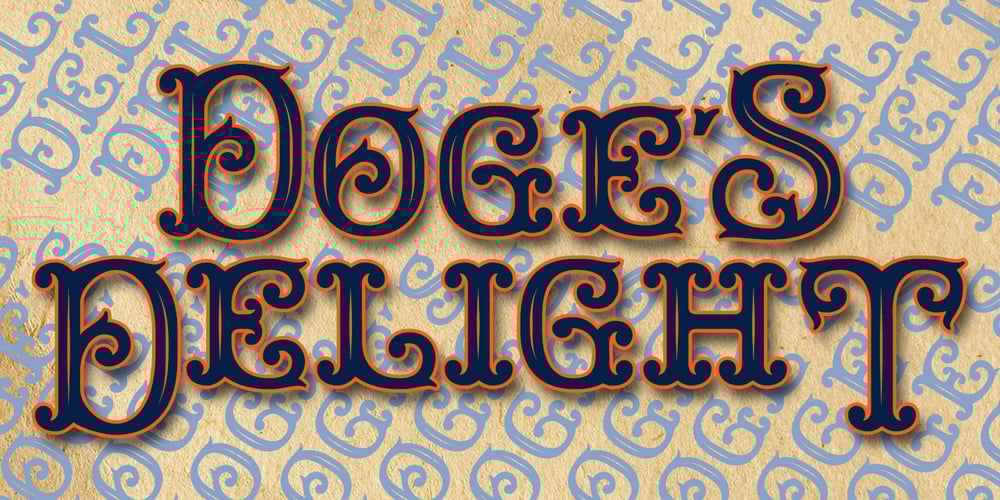
Doge’s Delight Font Family was designed by Paul James Lloyd and published by Greater Albion Typefounders. Doge’s Delight contains 1 styles and family package options. Doge’s Delight is one of a set of four typefaces, the others being Doge’s Darker, Doge’s Banner and Doge’s Venezia. Together they make up a splendid family of Victorian inspired Tuscan faces, allowing for an integrated design approach.